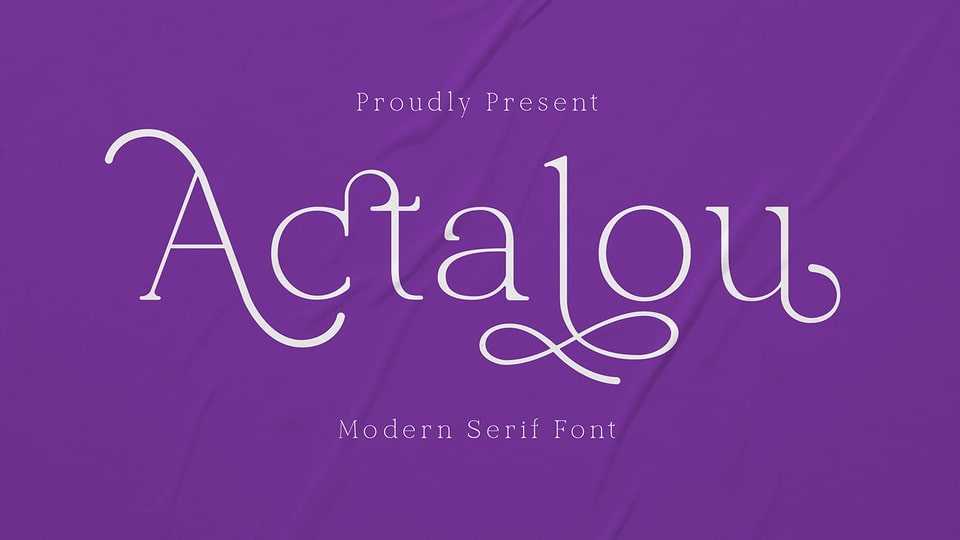
Download Actalou font, a refined and sophisticated typeface that seamlessly combines timeless tradition with contemporary grace. Actalou font brings a classic serif style to the forefront, characterized by well-defined serifs and a balanced letterform.